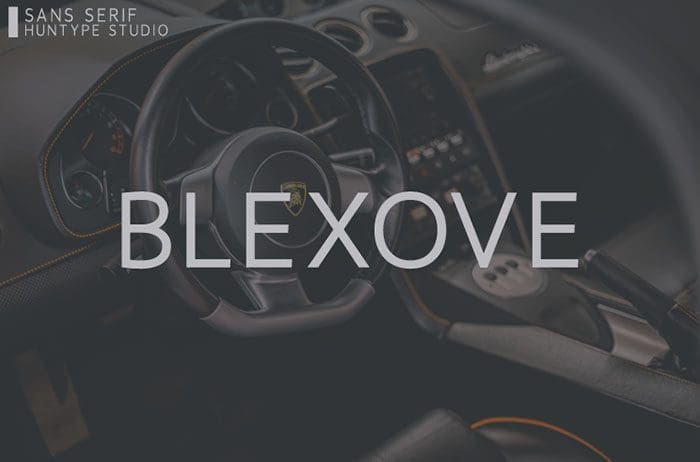
Blexove Sans Serif Font
Blexove simplifies elegance into one truly outstanding sans serif font. It will elevate a wide range of design projects to the highest level, be it branding, headings, wedding designs, invitations, signatures, logos, labels, and much more! Thanks to Mas Anis for sharing this awesome font! Take a look on this portfolio for more of his stunning fonts.